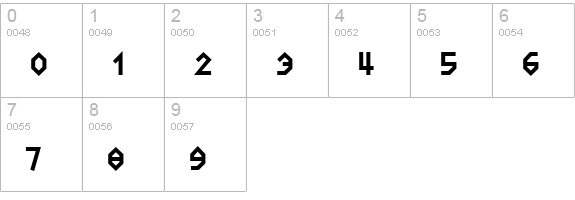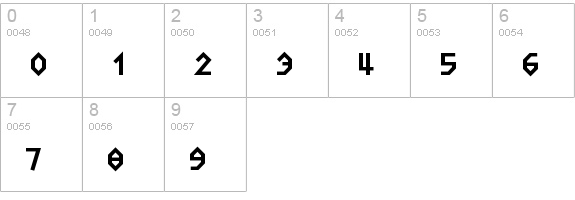
Eyebel Bold Font Details
Eyebel Bold is a strong, high-contrast variant in the Eyebel typeface family \xE2\x80\x94 well suited to headlines, attention-grabbing titles, and strong calls-to-action.
Eyebel Bold font is a modern and stylish typeface that exudes confidence and sophistication. With its strong, bold lines and sharp angles, Eyebel Bold demands attention and adds a touch of elegance to any design project. Perfect for headings, titles, and branding materials, this versatile font is sure to make a statement. What sets Eyebel Bold font apart is that it is available for free download at FontsMarket.com. This means that you can easily access and use this striking font in your projects without any cost involved. Whether you're designing a website, creating posters, or crafting marketing materials, Eyebel Bold font is a fantastic choice to elevate your designs and leave a lasting impression. Download Eyebel Bold font today and unleash your creativity with this stunning typeface.